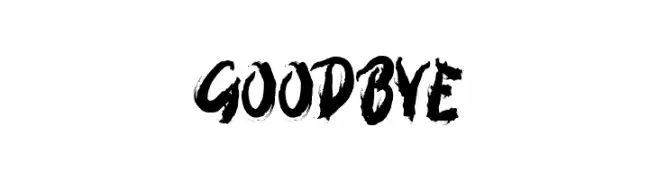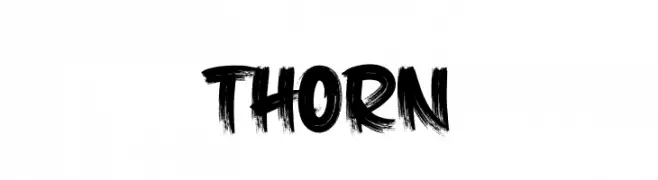
A bold, brushstroke-style font with a dynamic and textured appearance.
A bold, brushstroke font with a dynamic and artistic style.
A bold, brushstroke-style font with dynamic and textured characters.
A hand-drawn, brushstroke font with an artistic and casual style.
A playful and whimsical script font with elegant curves and decorative swashes.
A playful, handwritten font with tall, narrow letters and a casual style.
A playful, hand-drawn outline font with a whimsical and casual style.
A bold, brushstroke-style font with an energetic and dynamic appearance.
A bold, brushstroke-style font with expressive, hand-painted characters.
A bold, brushstroke font with a dynamic and textured appearance.